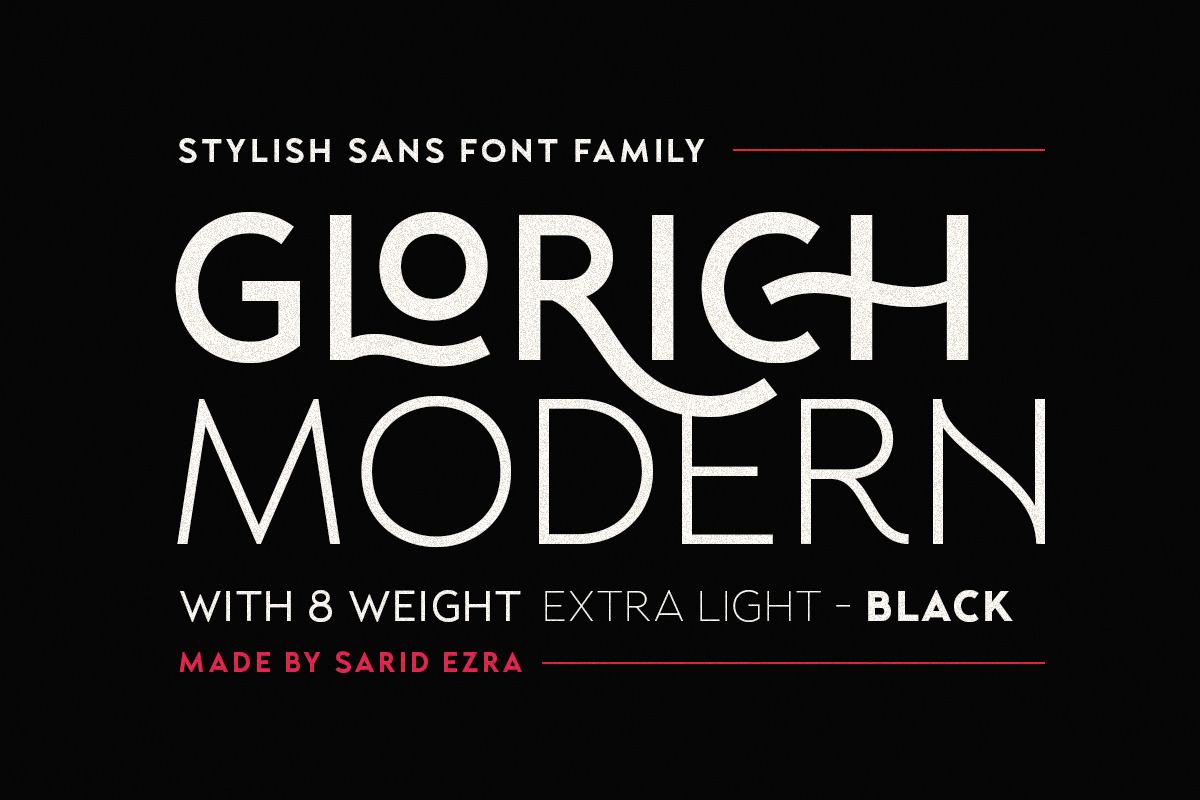
Glorich - Stylish Sans (8 Fonts) Free Download is a sleek and versatile sans-serif typeface family designed for modern, polished typography. With eight different weights and styles, Glorich offers incredible flexibility—perfect for branding, editorial layouts, website headers, tech startups, and minimalist design projects.
Glorich - Stylish Sans (8 Fonts) Free Download delivers clean lines, balanced proportions, and professional elegance across its full font set. Whether you're building a bold headline or crafting detailed body text, Glorich provides the tools to create visually stunning and cohesive typography. Download it today and power up your design workflow with this complete modern sans collection.